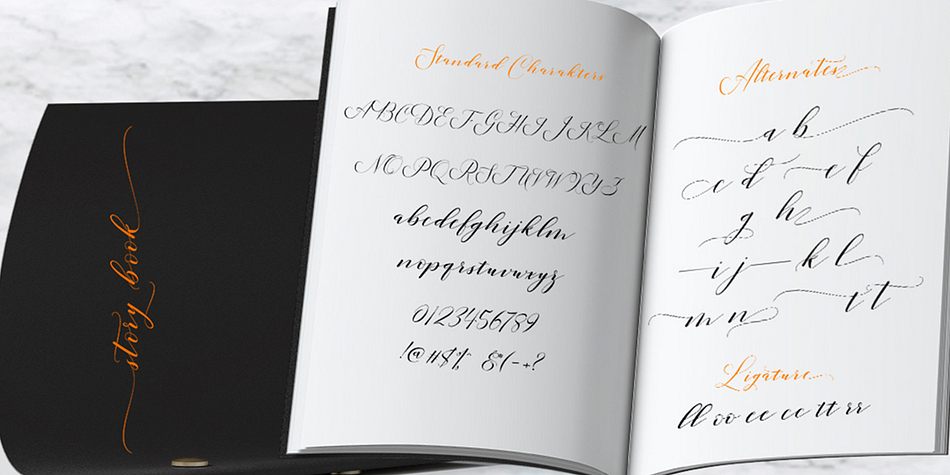
Lucinda Script
Lucinda Script is a script and modern calligraphy font published by Area Type Studio.
Lucinda Script is a modern calligraphy font, with characters that dance along the baseline and an elegant touch. Opentype features with stylistic alternates, ligatures and multiple language support.